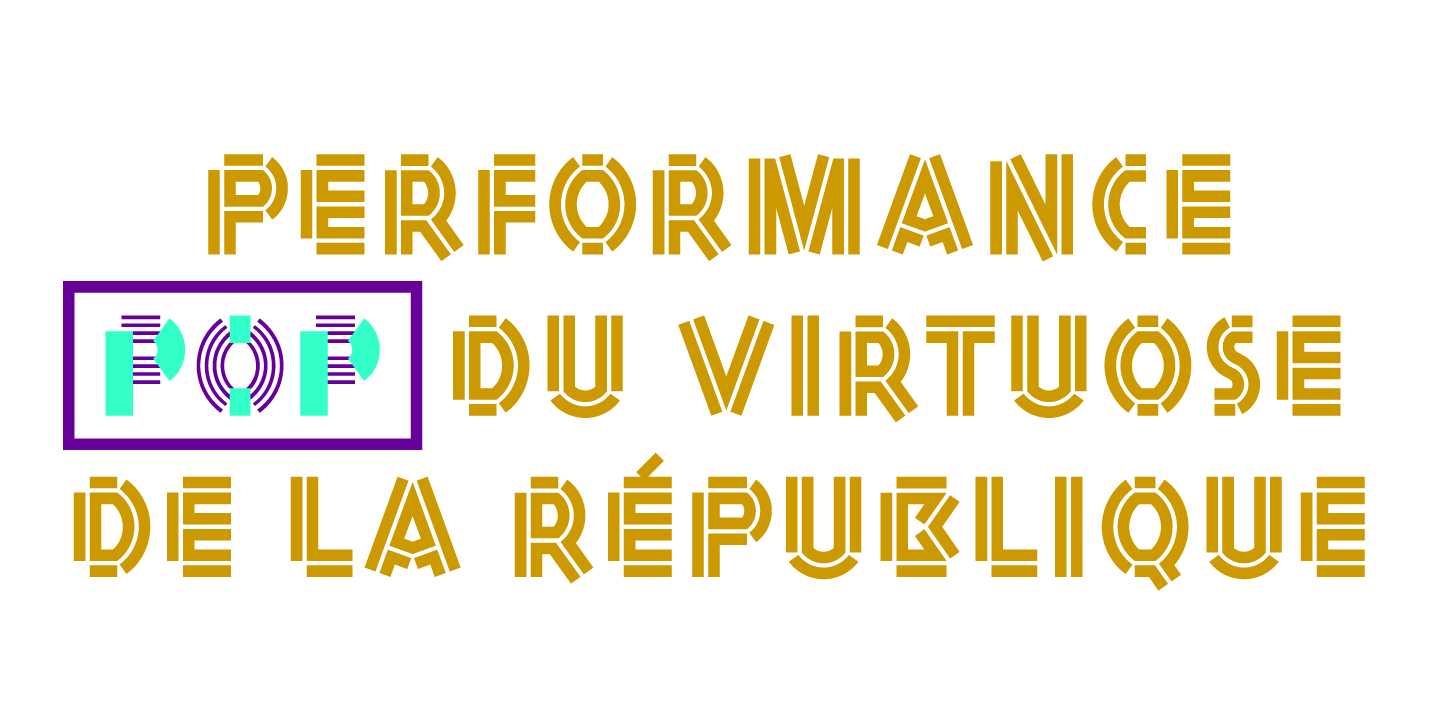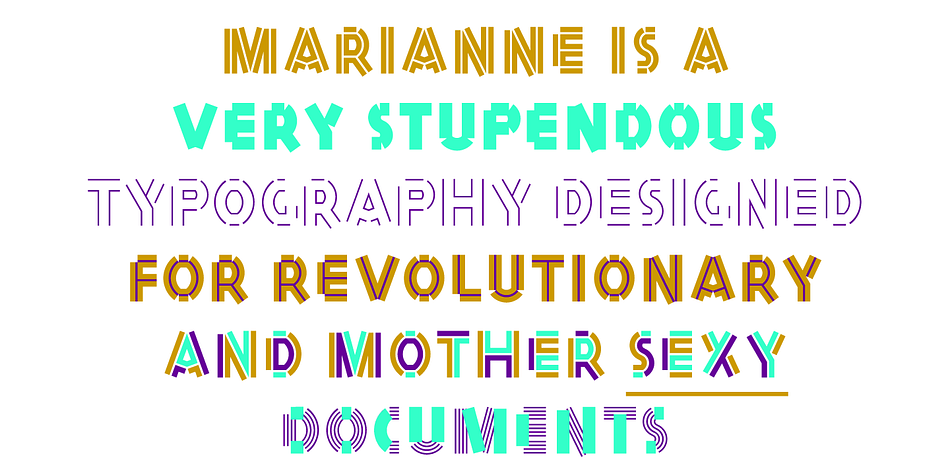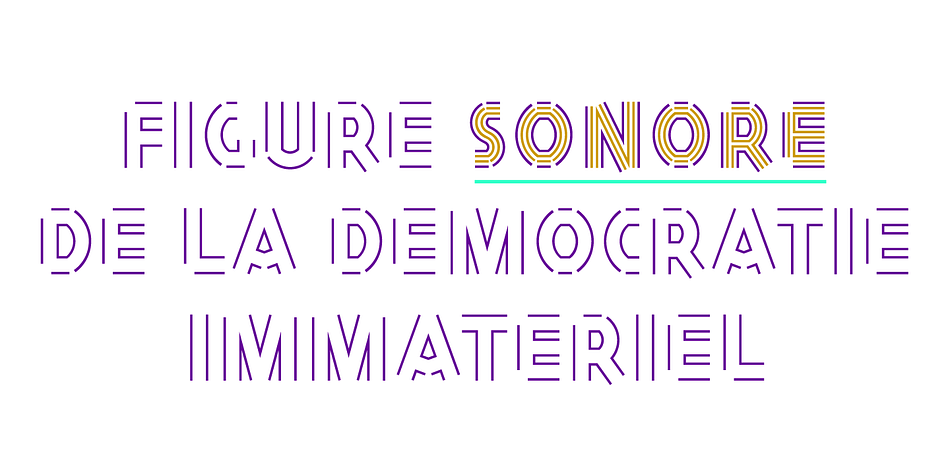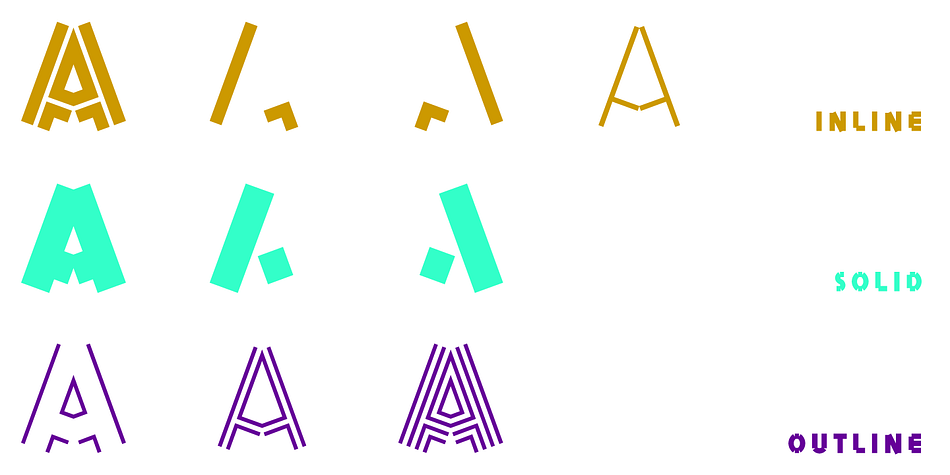
MARIANNE
Marianne is a display font family. This typeface has three styles and was published by bb-bureau.
Marianne – A multi-layered titling typeface.
Titration sans serif (Caps).
3 styles with OpenType variants, original ligatures and alternative, allow many combinations and uses.
Displaying the beauty and characteristics of the Marianne font family.
Highlighting the Marianne font family.
Marianne – A multi-layered titling typeface.
Titration sans serif (Caps). 3 styles with OpenType variants, original ligatures and alternative, allow many combinations and uses.